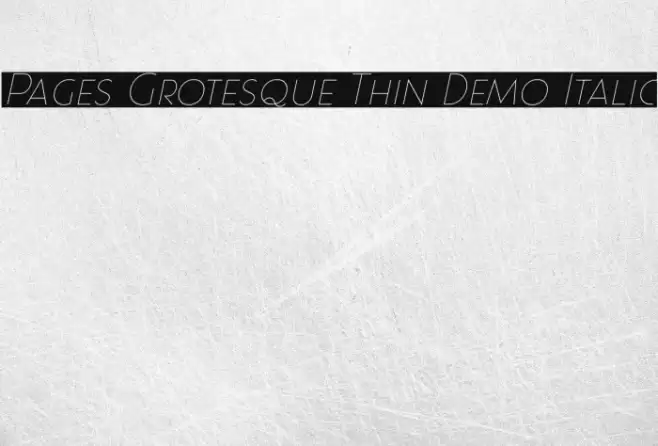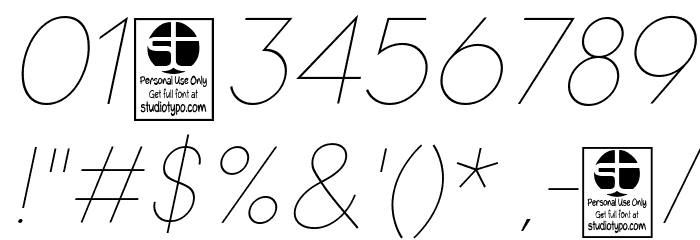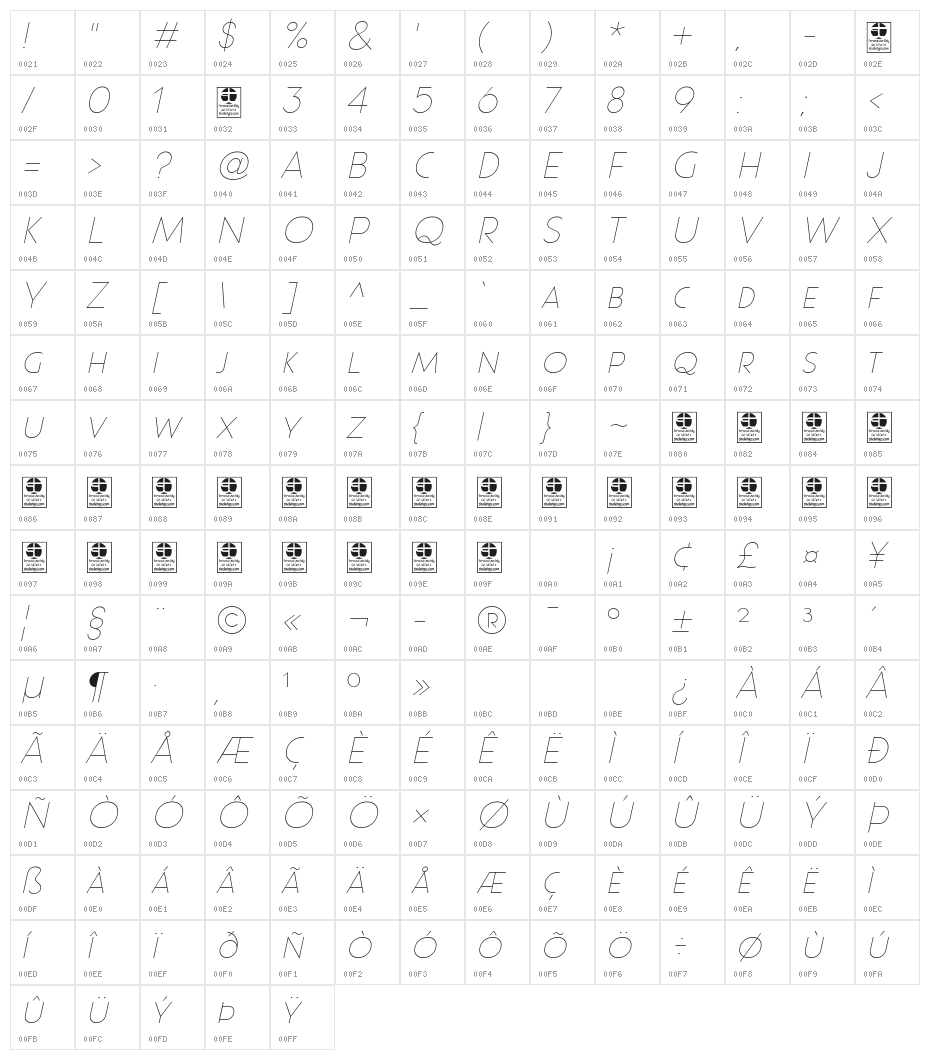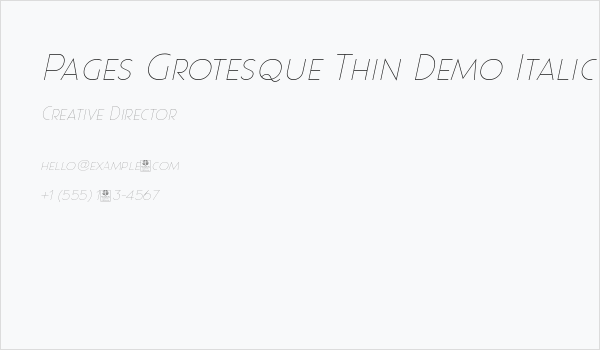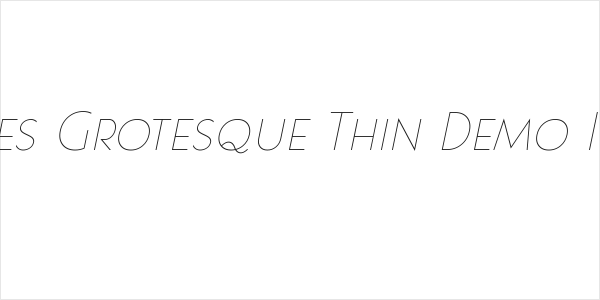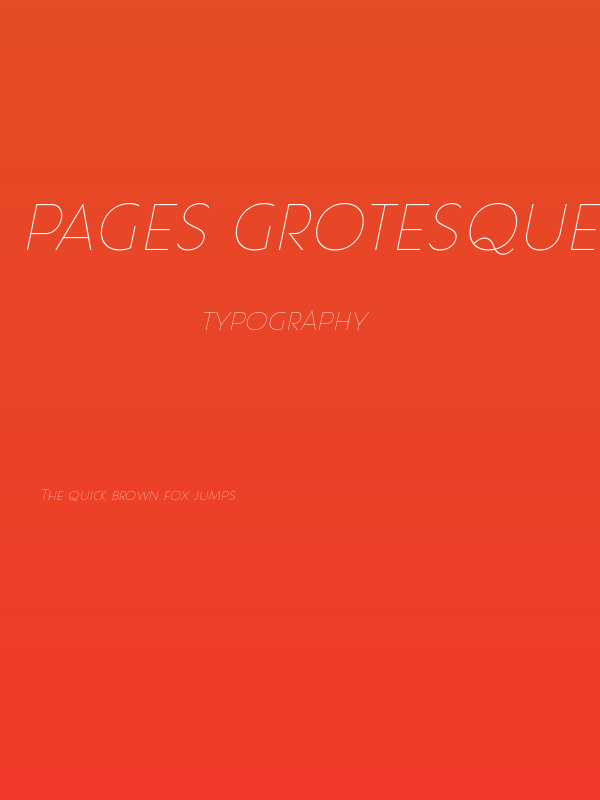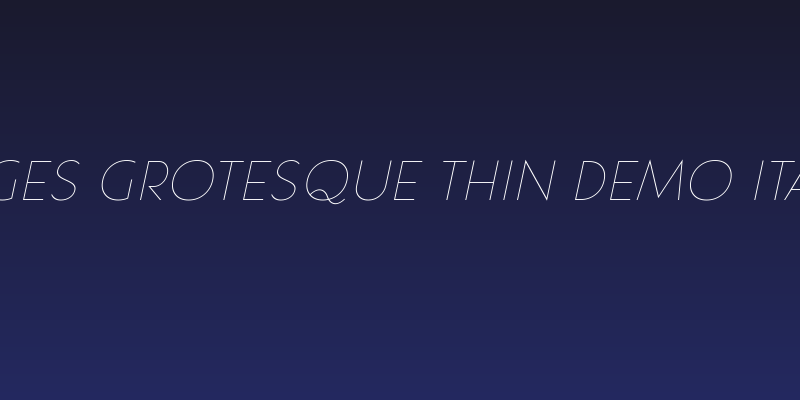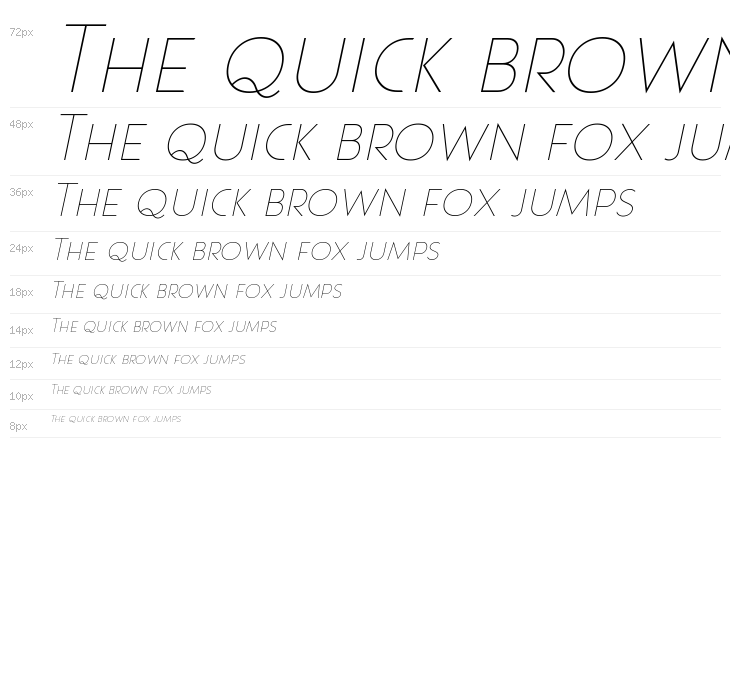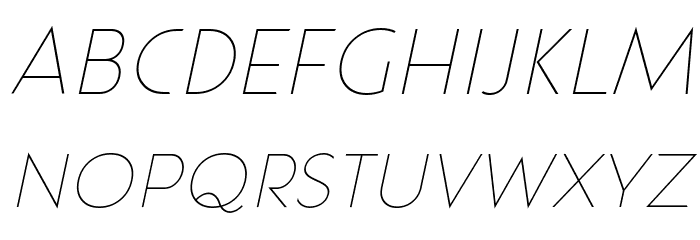
Pages Grotesque Thin Demo Italic Font
This font features a sleek and modern design with thin, elongated letterforms that convey elegance and simplicity. The italic style adds a dynamic and forward-moving feel, making it suitable for contemporary and stylish applications. The characters are evenly spaced, providing a clean and airy appearance. The font includes both uppercase and lowercase letters, numerals, and a variety of special characters, ensuring versatility in use. Its minimalist aesthetic is perfect for projects that require a refined and understated look.
A sleek, modern, and thin italic font with a minimalist design from Uncategorized fonts.
- Proposed Projects: Ideal for fashion magazines, modern branding, elegant invitations, and minimalist website headers.
- Use Case: Headlines, Logos, Invitations